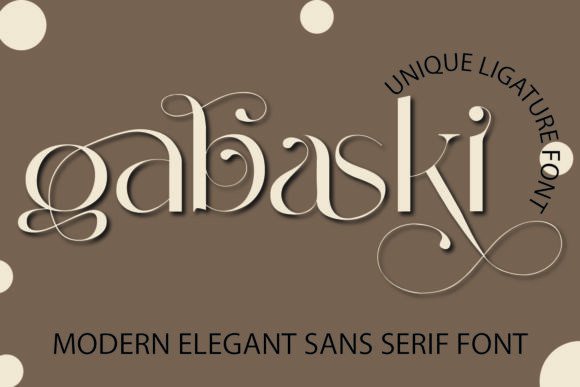
Introducing Gabaski Font, the epitome of elegance and contemporary design. This sans serif font, created by hmtypes1, is a true masterpiece that exudes sophistication and refinement. With its thin and refined letterforms, Gabaski embodies a sense of lightness and elegance that will elevate any project to new heights.
Are you in search of a font that will make your branding stand out from the crowd? Look no further, as Gabaski is the perfect choice for all your branding needs. Its sleek and modern appearance will captivate your audience and leave a lasting impression. Whether you're designing a logo, packaging, or marketing materials, Gabaski will infuse your brand with an aura of timeless beauty and class.
But Gabaski's allure goes beyond branding. This font is a true chameleon, effortlessly adapting to any project you have in mind. Its versatility knows no bounds, making it an ideal choice for high-end editorial design. Whether you're creating a magazine, book, or any publication that demands sophistication, Gabaski will be your trusty companion.
Not only does Gabaski possess a striking aesthetic, but it also offers a wealth of delightful glyphs and swashes. Thanks to its PUA encoding, accessing these stunning extras is a breeze. Let your creativity run wild as you effortlessly incorporate these intricate details into your designs, adding an extra touch of elegance and uniqueness.
Gabaski Font is not just a typeface; it's an experience. It evokes emotions and creates a connection between your brand and your audience. Its refined and contemporary charm will leave a lasting impression, ensuring that your message is not only seen but felt. With Gabaski, you have the power to captivate, inspire, and leave a mark in the hearts and minds of your customers.
So why settle for ordinary when you can choose extraordinary? Step into the world of Gabaski Font and unlock the potential to create stunning designs that will leave your competitors in awe. Elevate your brand, captivate your audience, and make a statement that cannot be ignored. Gabaski Font is your secret weapon for success.